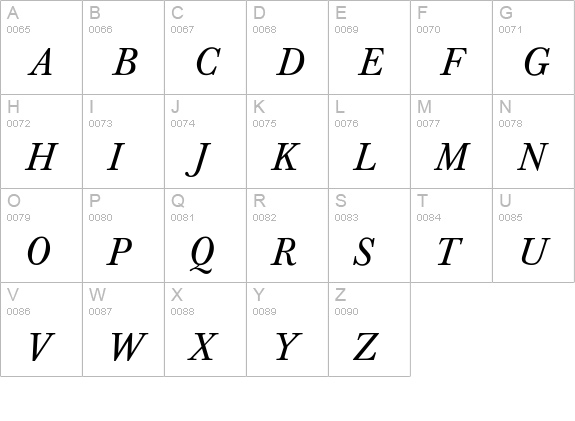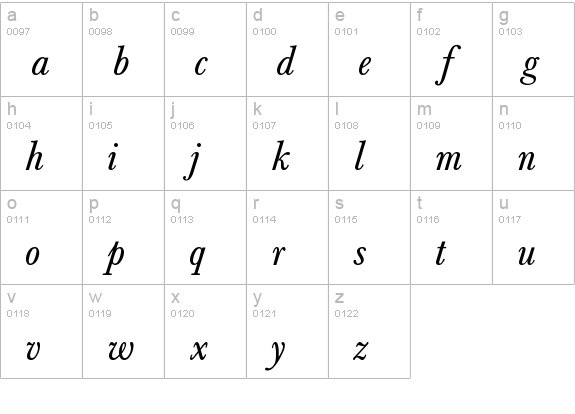
NewBaskervill 3 is a timeless and elegant serif font that exudes sophistication and refined charm. With its classic design and graceful curves, this font is perfect for adding a touch of elegance to any project. The NewBaskervill 3 font is versatile and can be used for various purposes, from formal invitations to professional documents. The best part is that NewBaskervill 3 is available for free download at FontsMarket.com. This means you can easily access this beautiful font and enhance your designs without any cost. Whether you are a designer looking to elevate your creations or a business owner seeking a polished look for your branding, NewBaskervill 3 is the perfect choice. Download it today and add a touch of timeless elegance to your projects.